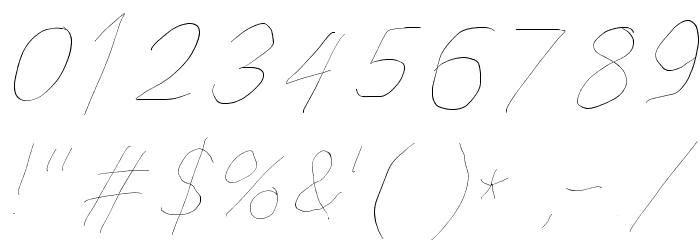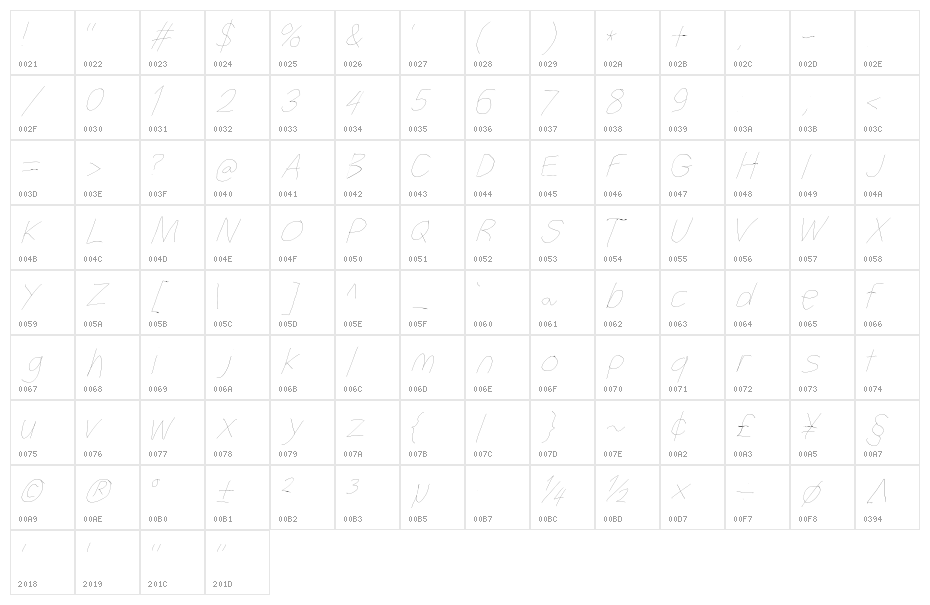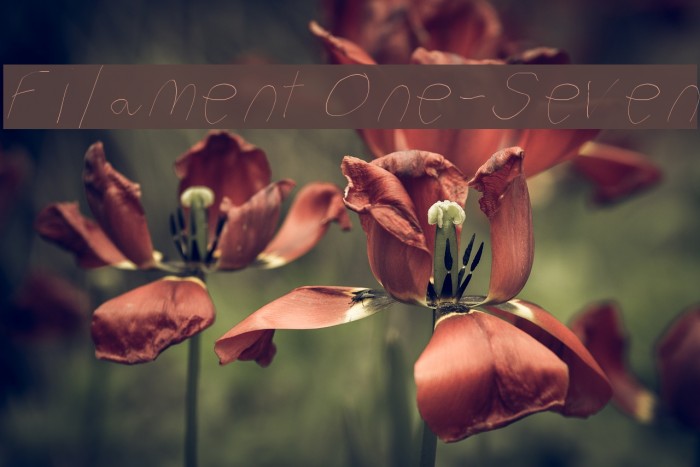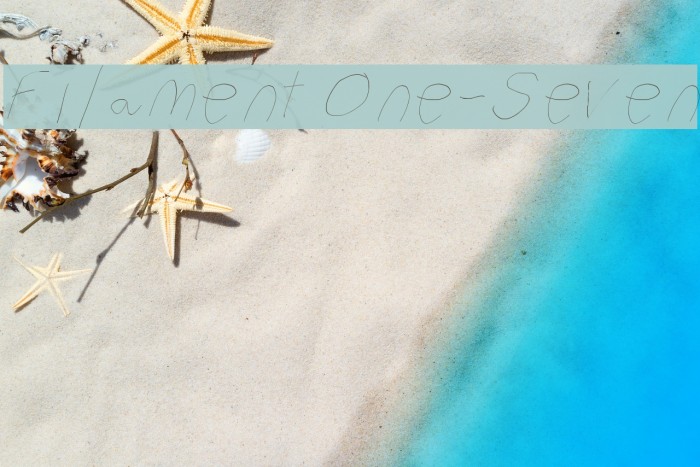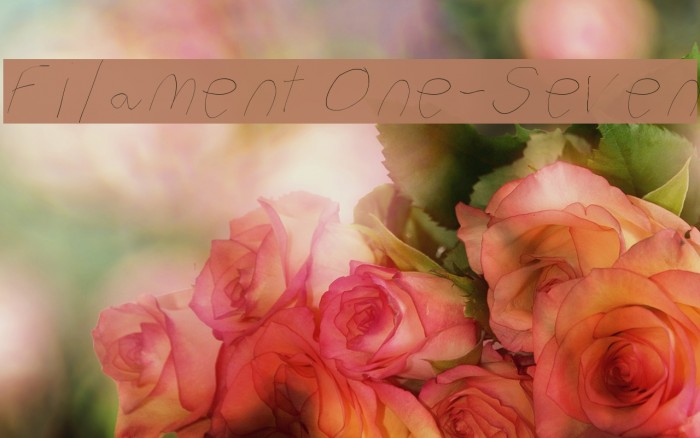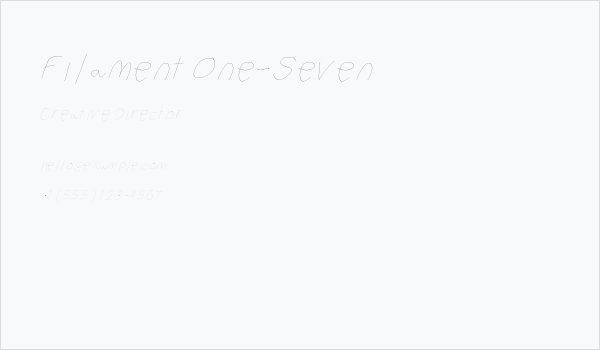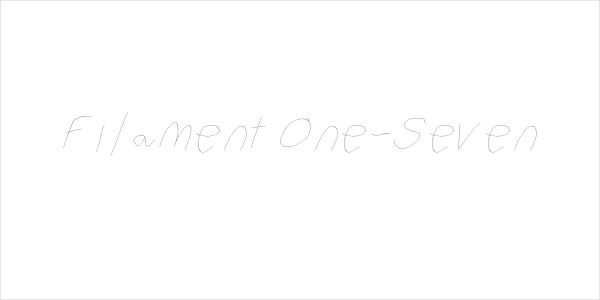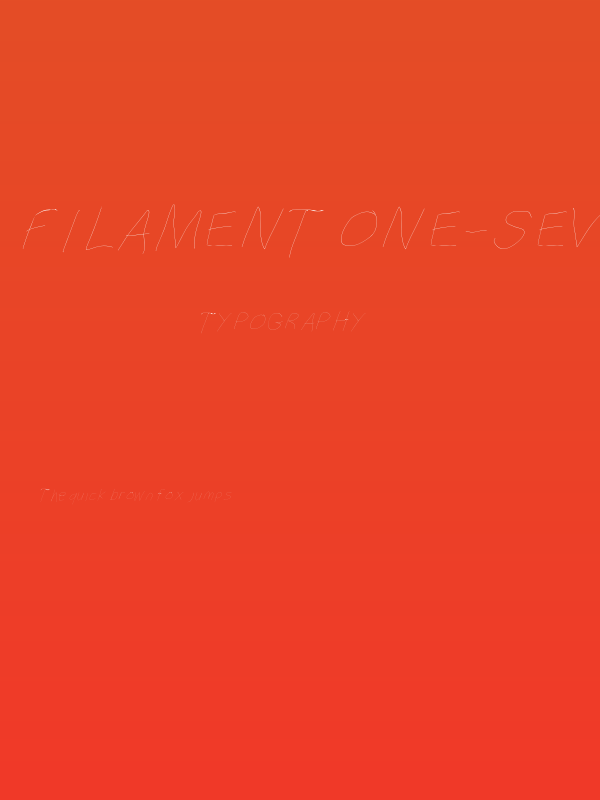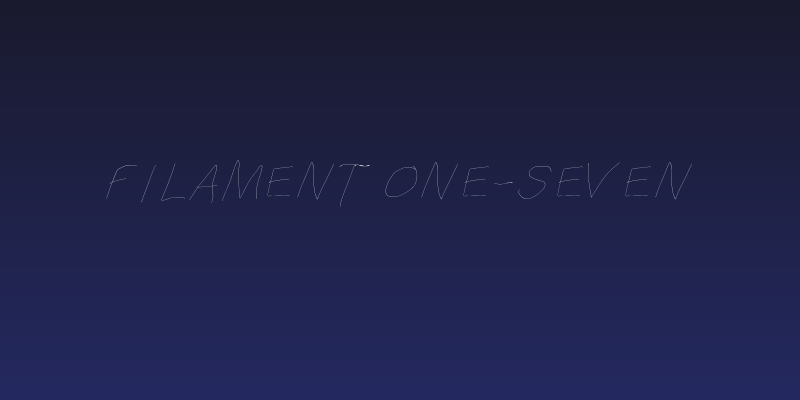
Filament One-Seven Font
Filament One-Seven Description
This font features a delicate, hand-drawn style with a light and airy appearance. The characters are slightly slanted, giving it a casual, informal feel reminiscent of cursive handwriting. The strokes are thin and consistent, with a smooth flow that enhances readability. The uppercase letters maintain a uniform height, while the lowercase letters have a slight variation in size, adding to the organic look. Numbers and special characters follow the same thin, elegant style, making this font versatile for various design needs.
| Overall Style | Casual, Elegant |
| Use Case | Invitations, Greeting cards, Personal notes |
| Proposed Projects | Ideal for personal notes, invitations, greeting cards, and creative projects that require a personal touch. |